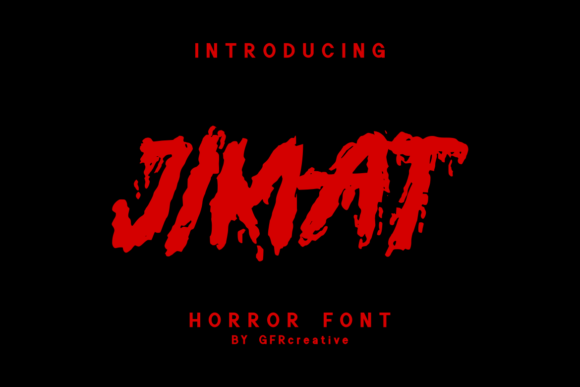
Introducing Jimat Font, the spine-chilling typeface that will send shivers down your spine and ignite your creative darkness. Crafted by the masterminds at GFRcreative, Jimat is a horror-inspired display font that oozes eerie elegance and unsettling charm.
Prepare to unleash your imagination and delve into a world of haunting beauty, where every letter becomes a chilling masterpiece. Jimat's rough-textured edges and jagged strokes evoke a sense of unease and anticipation, making it the perfect choice for conjuring up spine-tingling designs.
Whether you're a graphic designer looking to create eye-catching posters or a clothing designer seeking to infuse your creations with a touch of the macabre, Jimat Font is your ticket to the realm of the extraordinary. Its versatility extends to logos, advertisements, and any project that demands a dose of the thrillingly unsettling.
With Jimat Font, you'll have the power to:
- Summon chilling designs that will haunt your audience's dreams.
- Create t-shirts that ooze a spine-tingling style, perfect for those who embrace the darkness.
- Craft logos that exude an aura of mystery and intrigue, leaving a lasting impression on all who behold them.
- Design sportswear that channels the energy of the underworld, appealing to those who dare to venture beyond the ordinary.
- Unleash your creativity and conjure up designs that will become the stuff of legends.